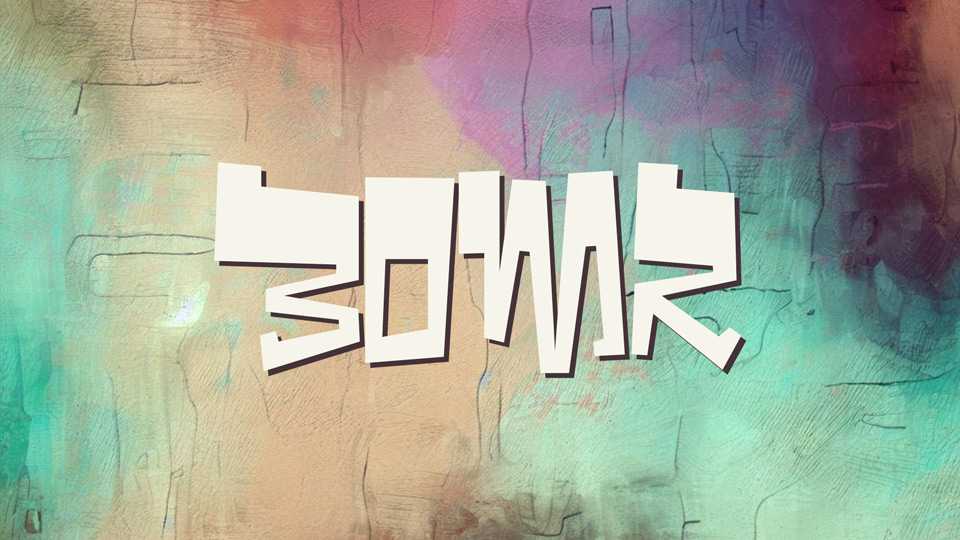
Download Bomr font, a blocky graffiti-style typeface inspired by the raw energy and artistic spontaneity of street art. Each character is crafted with bold, irregular lines and offbeat embellishments, making Bomr font perfect for designs that demand a blend of urban attitude and creative whimsy.